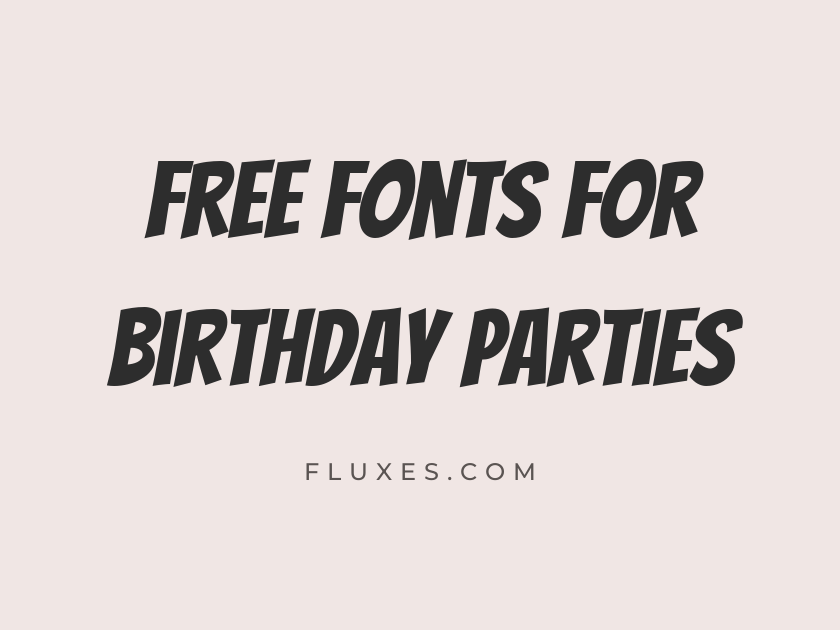
75 Best Free Fonts for Birthday Parties
Birthday parties come in every mood imaginable, from a toddler’s first cake smash to a milestone fortieth with string lights and champagne, and the right typography does a surprising amount of work in setting that tone before a single balloon goes up. A bouncy, rounded letterform says confetti and sprinkles; a fine italic script says candlelight and toast. Whether the project is a printable invitation, a banner strung across a mantel, a cake topper, or an Instagram story announcing the big day, free fonts for birthday parties from Google Fonts cover an enormous range of energy, formality, and handwriting styles worth knowing well.
1. Bangers
Loud in the best possible way, this comic-book style display font practically shouts across a banner or invitation headline. It was built for exclamation points and works best in all caps at large sizes, where its slight wobble and ink-splatter energy read as pure celebration.
Bangers pairs naturally with a plain sans for body copy since it has no interest in being subtle itself.
2. Luckiest Guy
Few free fonts nail the fairground poster feel quite like this one. Its chunky, slightly leaning letters have a hand-painted circus-sign quality that suits birthday banners, T-shirt designs, and cake toppers for kids’ parties especially well.
It gets muddy at small sizes, so save it for headlines rather than fine print.
3. Titan One
Rounded and inflated like a balloon animal, Titan One brings a bubble-letter cheerfulness that suits birthday party graphics aimed at young children. The thick strokes hold up well printed large on posters or cut as vinyl decals.
4. Alfa Slab One
This is a heavyweight slab serif with real presence, the kind of letterform that anchors a birthday announcement or age milestone graphic without needing color or effects to do the talking. Its confidence works especially well for numeral-heavy designs like “30” or “Sweet 16.”
5. Righteous
Righteous has a retro arcade-game charm, geometric but friendly, that fits party invitations with a playful, slightly nostalgic streak. It reads cleanly at a range of sizes, which makes it more versatile than most heavy display faces.
6. Lilita One
Soft, rounded, and a little bit cartoonish, Lilita One sits comfortably between playful and legible. It suits birthday logos, party favor tags, and headline text on kids’ invitations without tipping into novelty territory.
7. Bungee
Originally designed with urban signage in mind, Bungee’s blocky, high-contrast letterforms translate surprisingly well to birthday banners and poster-style invites, especially for a teenager’s or young adult’s party with a streetwear edge.
8. Bungee Shade
This layered variant of Bungee adds a dimensional drop-shadow effect baked right into the letterforms, giving flat digital designs an easy sense of depth. It works best as a short headline rather than a full sentence, since the effect gets busy in long lines.
9. Boogaloo
Bouncy and a little retro, Boogaloo has the rounded swing of hand-painted 1970s signage. It brings warmth to birthday graphics without the harder edge of more industrial display fonts.
10. Chango
Blocky and slightly rebellious, Chango has enough weight and attitude to anchor a birthday poster for a milestone celebration, particularly one with a rock-and-roll or garage-band aesthetic.
11. Carter One
Carter One rounds off its thick strokes just enough to feel friendly rather than aggressive, making it a solid choice for birthday party logos and cake topper lettering that need to read instantly from across a room.
12. Bevan
A sturdy slab serif with old-fashioned poster charm, Bevan suits birthday invitations with a vintage carnival or Americana theme. It has enough personality to work alone as a headline but stays readable in ways flashier display fonts do not.
13. Rammetto One
Rammetto One has a soft, three-dimensional quality reminiscent of inflated rubber, which makes it an easy fit for kids’ party graphics and bounce-house birthday invites specifically.
14. Londrina Solid
Compact and geometric with a playful wobble, Londrina Solid was designed in Brazil and carries a bit of street-art energy. It reads well at large sizes on banners and works nicely as an accent alongside a calmer body font.
15. Concert One
Birthday design covers so much emotional range, from sugar-rush kid parties to candlelit milestone dinners, that having a wide typographic vocabulary on hand makes every invitation, banner, and cake topper feel purpose-built rather than generic. All of the fonts above are free to download and use through Google Fonts, ready to be paired, scaled, and printed for whatever kind of celebration comes next.